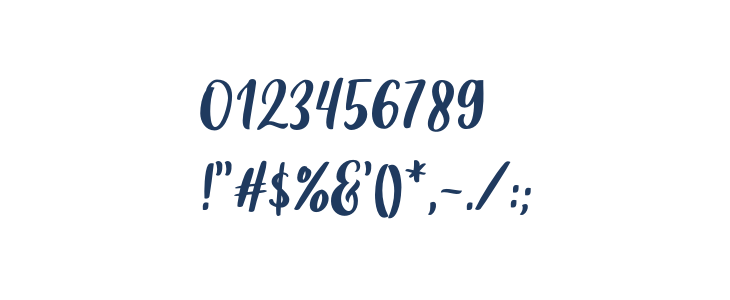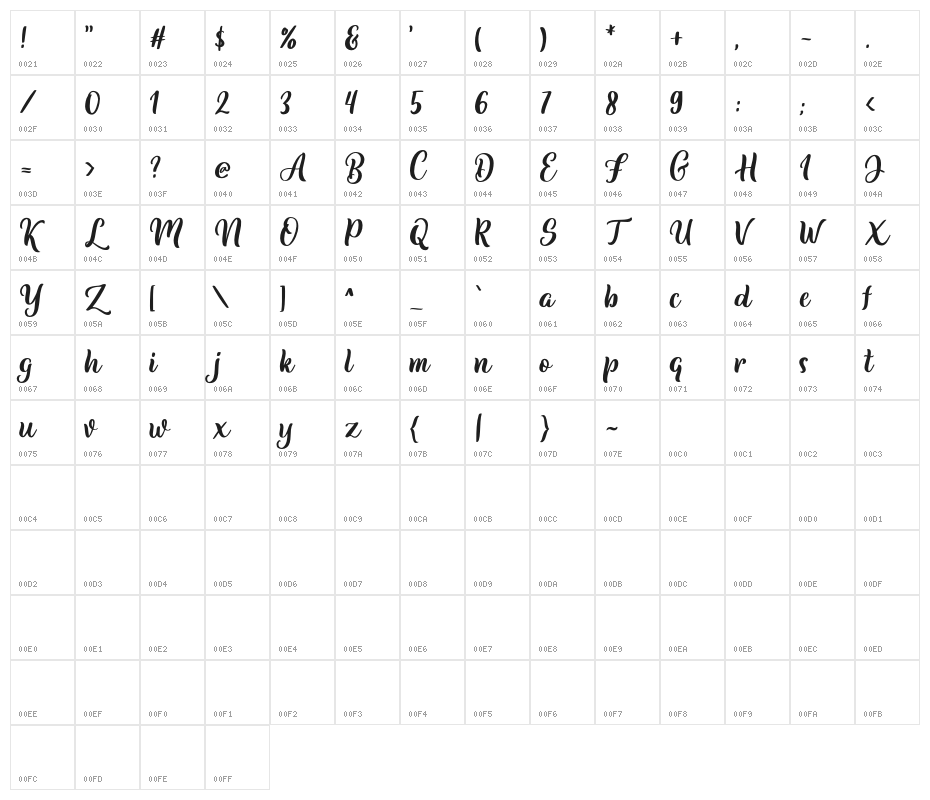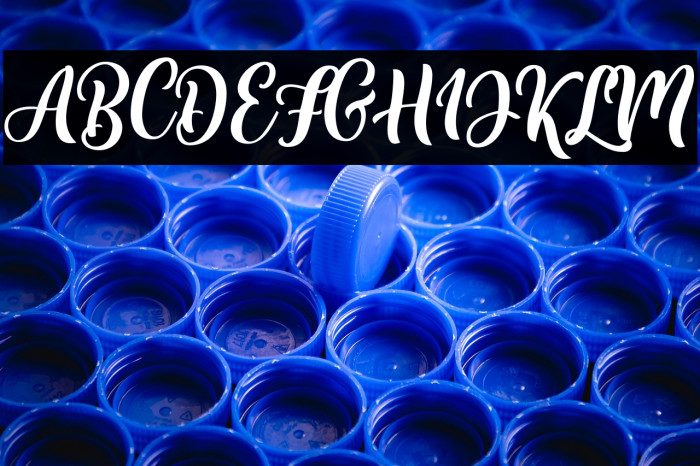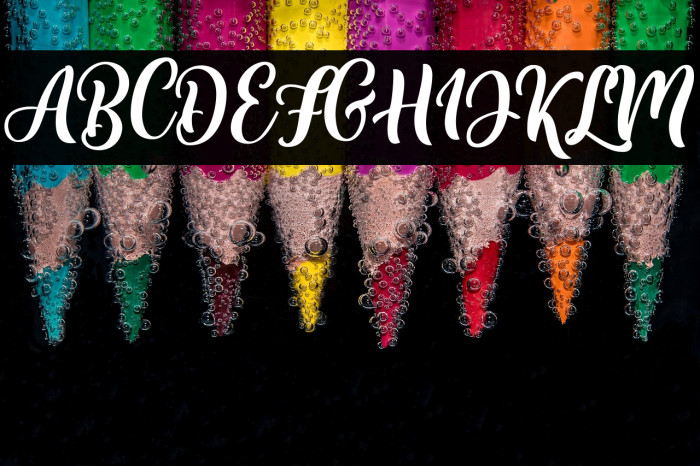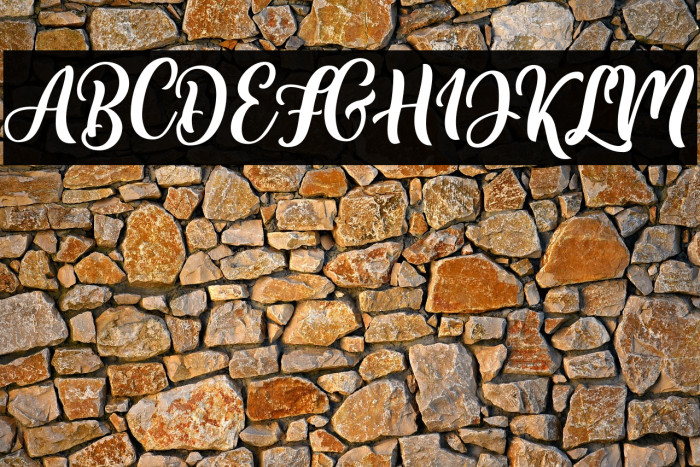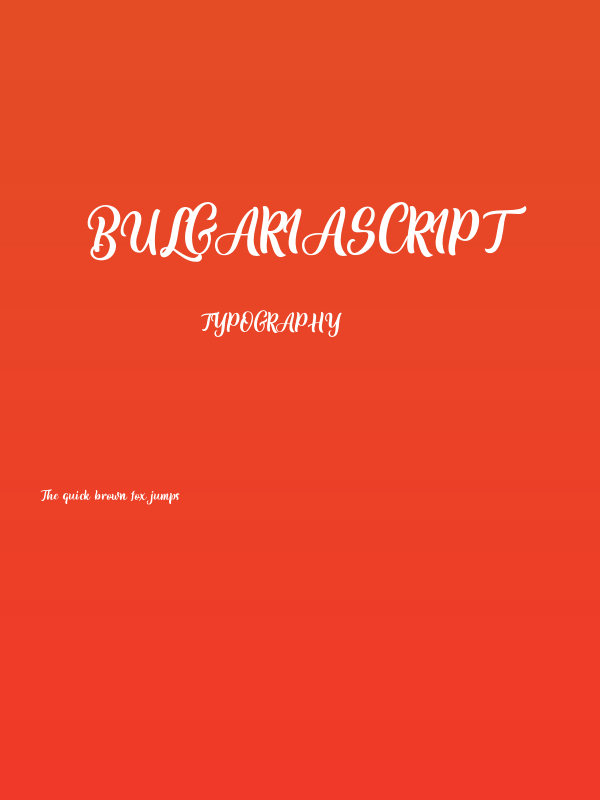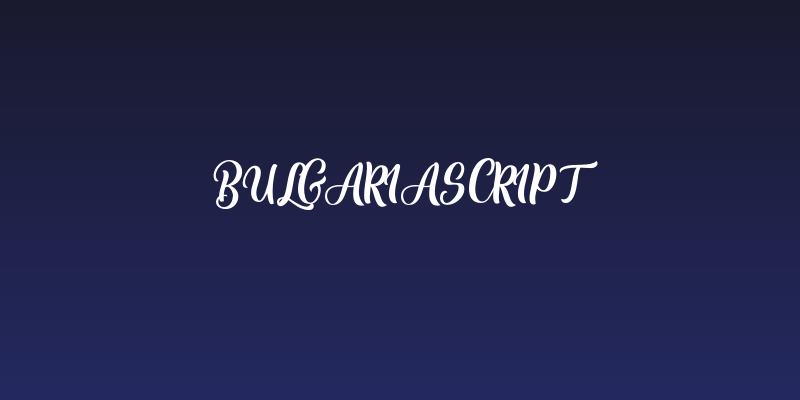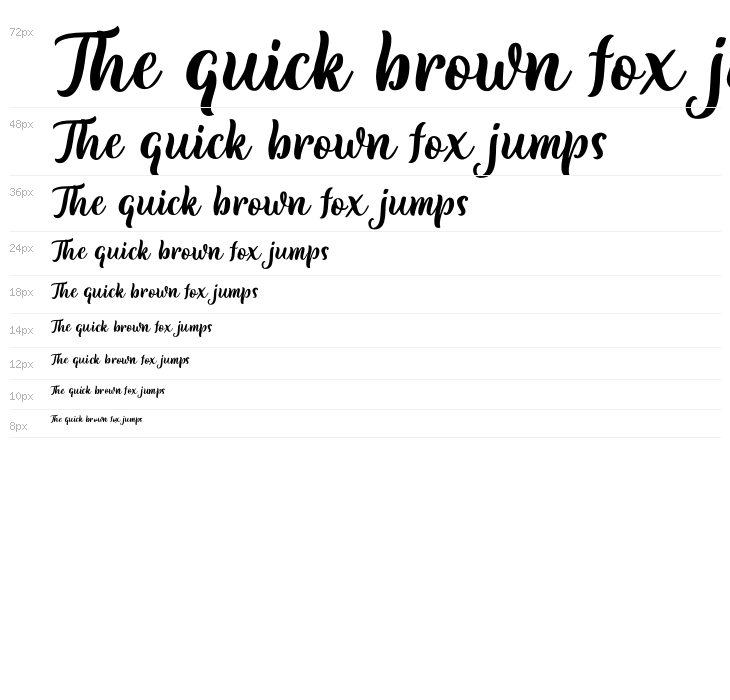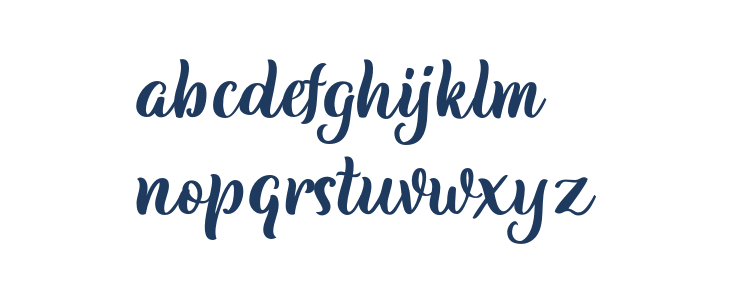
BulgariaScript Font
BulgariaScript Description
This script font exudes a lively and dynamic character, featuring fluid, cursive strokes that mimic the elegance of handwritten calligraphy. The uppercase letters are bold and sweeping, with distinctive loops and flourishes that add a touch of sophistication. The lowercase letters maintain a consistent flow, enhancing readability while preserving the font's artistic flair. Numbers and special characters are crafted with the same attention to detail, ensuring a cohesive look across all text elements. This font is perfect for projects that require a personal, artistic touch, such as invitations, greeting cards, and branding materials.
| Use Case | Headlines, Logos, Artistic projects |
| Proposed Projects | Ideal for invitations, greeting cards, branding, and artistic projects. |